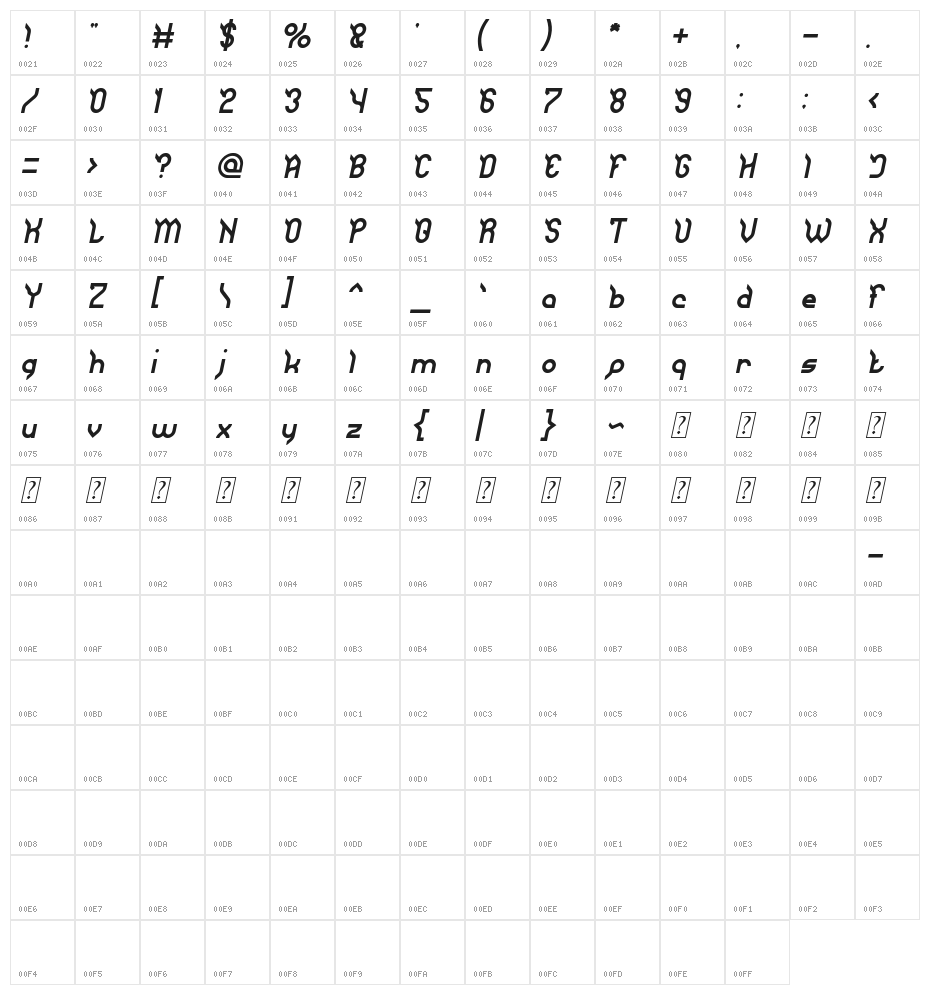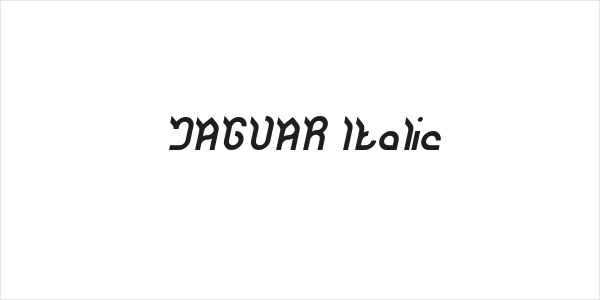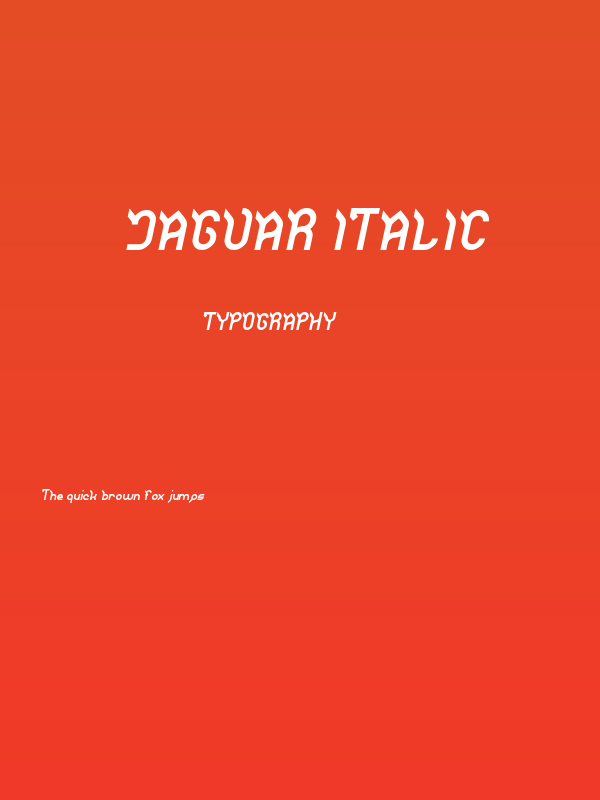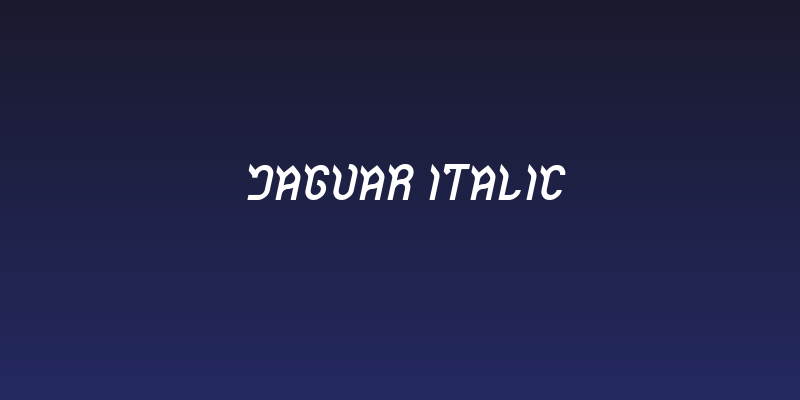
JAGUAR Italic Font
JAGUAR Italic Description
This font features a dynamic and bold italic style with sharp, angular strokes that convey a sense of speed and movement. The uppercase letters have a strong presence with unique, edgy serifs that add a modern twist to the classic italic form. The lowercase letters maintain the same energetic style, with distinctive curves and angles that enhance readability while maintaining a stylish appearance. Numbers and special characters are designed to match the overall aesthetic, providing a cohesive look across all text elements. This font is perfect for projects that require a bold, contemporary feel.
| Proposed Projects | Ideal for branding, sports team logos, automotive advertisements, and dynamic poster designs. |